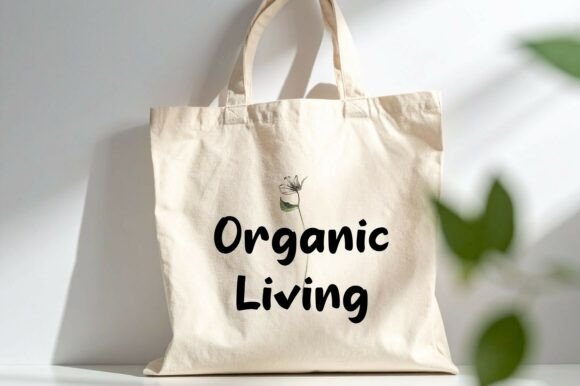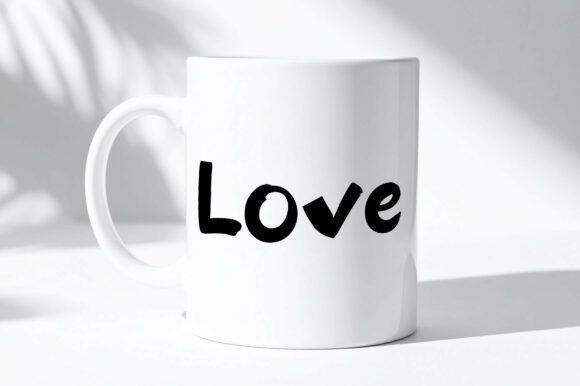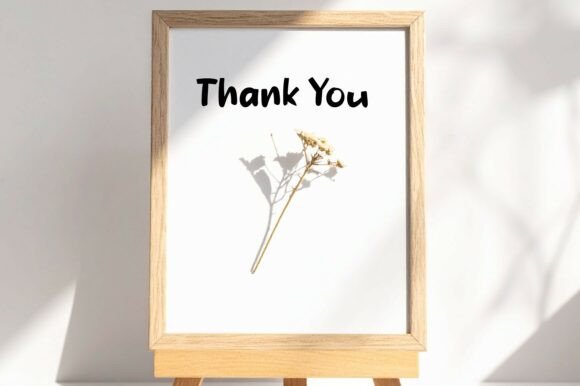
Discover the Charming Bengkoang Font: A Perfect Blend of Sincerity and Originality
As a designer, I’ve had my fair share of moments where finding the right font felt like searching for a needle in a haystack. I recall working on a project for an eco-friendly brand, wanting a typeface that conveyed honesty and comfort. That’s when I stumbled upon Bengkoang, a script font that instantly captured my heart with its playful irregularities and genuine charm.
Bengkoang is more than just a font – it’s a storytelling companion that brings a sense of warmth and personality to any project. In this article, I’ll share my experience with Bengkoang, its unique features, and how to make the most of it in your designs.
An Honest Review of Bengkoang
What I Love About Bengkoang ✨
- ✅ Unique blend of abrupt lines and tender arches, creating a captivating medley of sincerity and originality
- ✅ Perfect for environmentally-minded branding, custom-made product labeling, and intimate web logs
- ✅ Supports OpenType features, glyphs, and stylistic alternates for added versatility
- ✅ Easy to read and understand, even in smaller font sizes
While Bengkoang is an amazing font, there are a few things to keep in mind:
- 🤔 Some letters may appear a bit irregular or uneven, which can be a deliberate design choice or a limitation depending on your project
- ⚠️ Not suitable for very formal or corporate designs, as it leans more towards a playful and personal style
The Story Behind Bengkoang
Bengkoang was designed with the intention of creating a typeface that exudes warmth and personality. Its unique blend of abrupt lines and tender arches is meant to evoke a sense of sincerity and originality. The font’s creator aimed to craft a design that would be perfect for projects that require a human touch, such as environmentally-minded branding, custom-made product labeling, and intimate web logs.
Q: What is Bengkoang font best used for?
A: Bengkoang is ideal for designs that require a personal touch, such as environmentally-minded branding, custom-made product labeling, and intimate web logs.
Q: Is Bengkoang a difficult font to read?
A: No, Bengkoang is designed to be easy to read and understand, even in smaller font sizes.